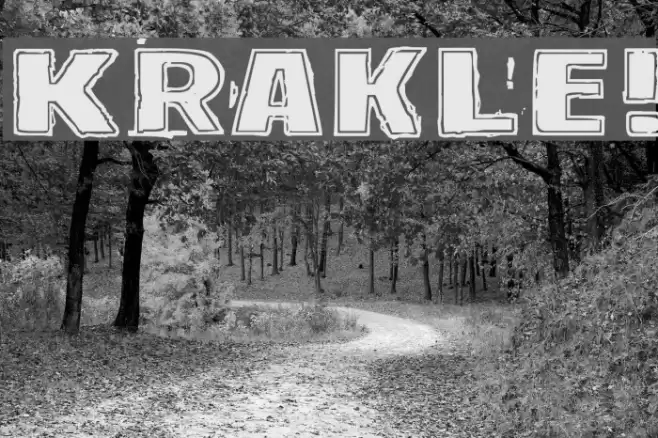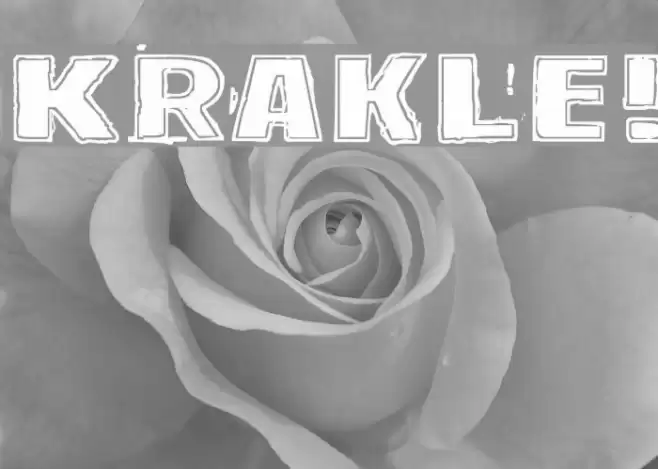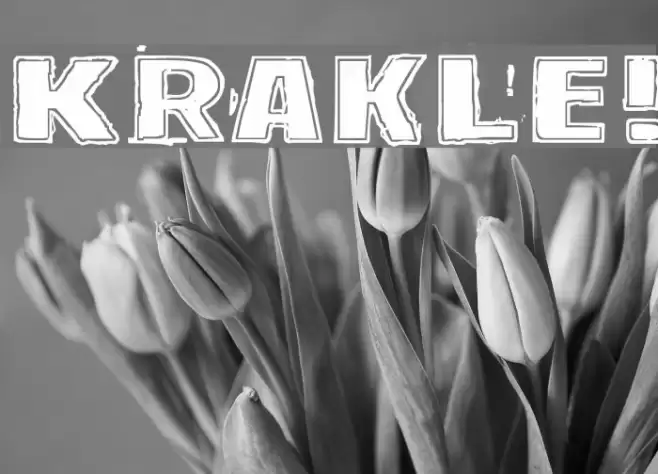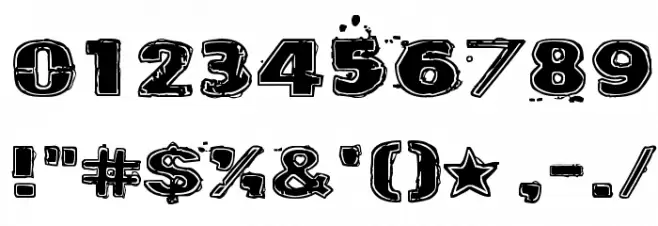
Krakle! Font
Krakle! Description
This font features a bold, distressed style with a grunge texture that gives it a rugged, worn appearance. The characters are blocky and substantial, with a strong presence that makes them stand out. The distressed effect is consistent across all characters, creating a cohesive look that is both edgy and artistic. This font is ideal for projects that require a vintage or industrial feel, such as posters, album covers, or branding for edgy products. The uppercase and lowercase letters maintain the same stylistic elements, ensuring uniformity in design.
A bold, distressed font with a grunge texture and strong, blocky characters from Distorted Eroded fonts.
- Font: Krakle!
- Proposed Projects: Ideal for posters, album covers, edgy branding, and vintage-themed designs.
- Overall Style: Vintage